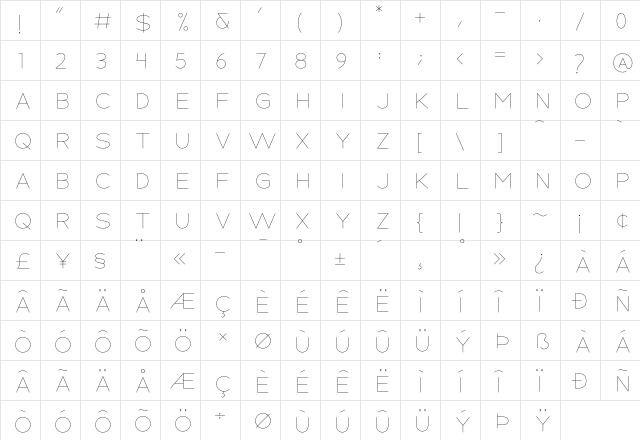
MODERNSPACE Regular
Design Context for MODERNSPACE Typeface
MODERNSPACE takes a measured approach to typography — its balanced proportions and neutral character make it a reliable workhorse for both digital and print work.